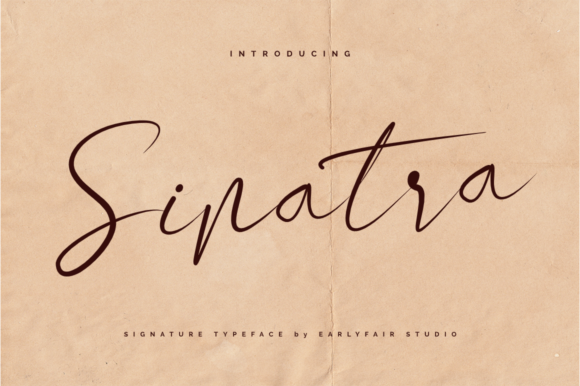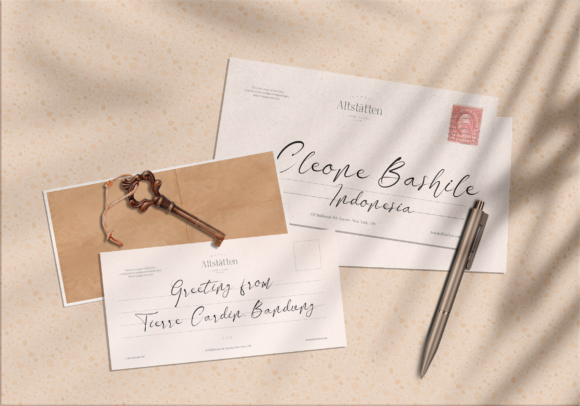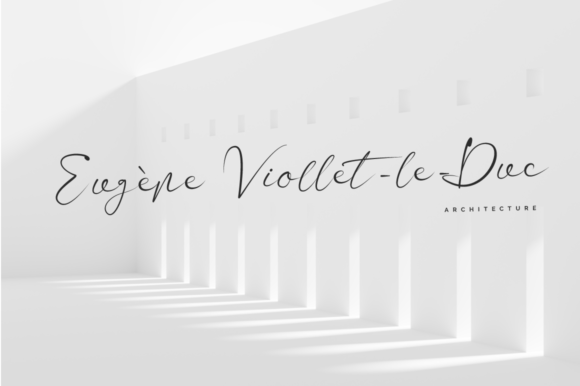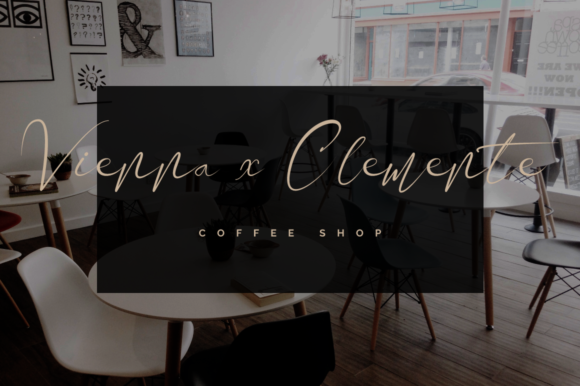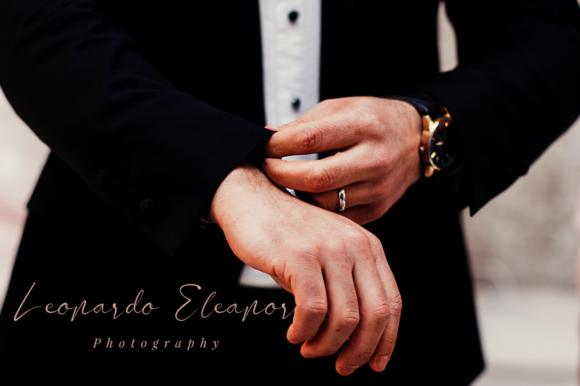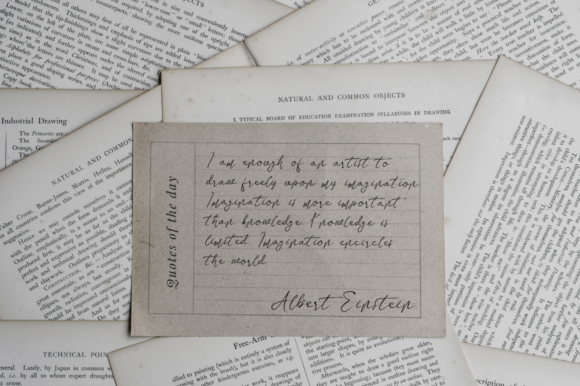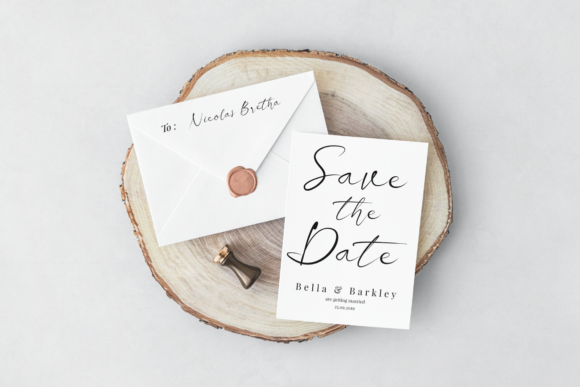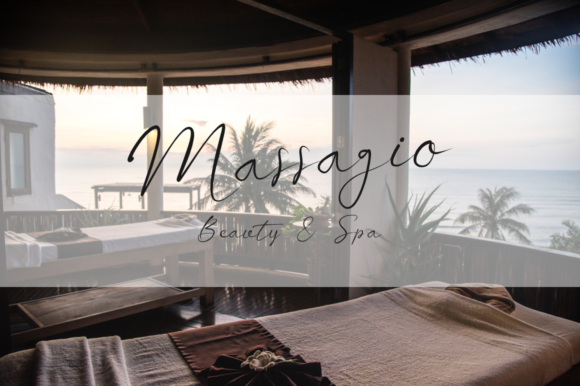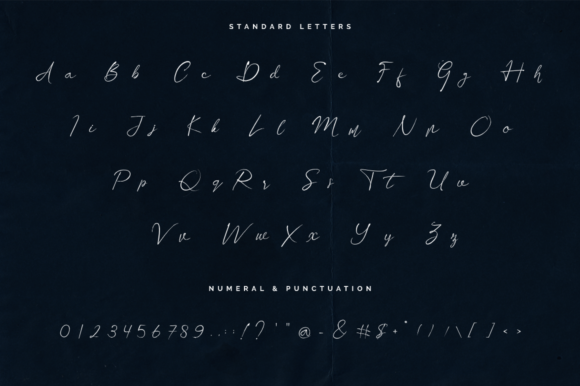
HomeScript FontsSinatra Font Script Fonts Sinatra Font FacebookXPinterestWhatsApp Sinatra Font Poster 2 Sinatra Font Poster 3 Sinatra Font Poster 4 Sinatra Font Poster 5 Sinatra Font Poster 6 Sinatra Font Poster 7 Sinatra Font Poster 8 Sinatra Font Poster 9 About Sinatra Font Sinatra is incredibly elegant and authentic and contains smooth curves, making it a standout script! DOWNLOAD ON CREATIVE FABRICAThis font is sold and delivered by Creative Fabrica. Font Canyon may earn a commission if you buy through this link. People also explored Hello Cantika Script Font Layers Font Writte Letter Font Black Visual Font Welcome Paradise Font Minimalist Farmhouse Font Stickers Font Tree Christmas Font Barocca Monograms 395 0 TagsSinatra Font Previous articleAngelina FontNext articleJorby Font LEAVE A REPLY Cancel reply Comment: Please enter your comment! Name:* Please enter your name here Email:* You have entered an incorrect email address! Please enter your email address here Website: Save my name, email, and website in this browser for the next time I comment. Personal Use Free Blessed Font Personal Use Free Read more about this font Caramel Latte Personal Use Free Read more about this font The Kingdom Personal Use Free Read more about this font Motherblood Personal Use Free Read more about this font BLOG Top 7 Google Fonts Alternatives for Faster and Privacy-Friendly Web Design (2025) Top 7 Google Fonts Alternatives for Faster and Privacy-Friendly Web Design (2025) When it comes to web typography, Google Fonts has long been the go-to... Transform Your Website: Elevate Your Typography with 7 Best Web Font Generators Where to Buy American Fonts Online in 2024 5 Fonts That Will Dominate Design Trends in 2026